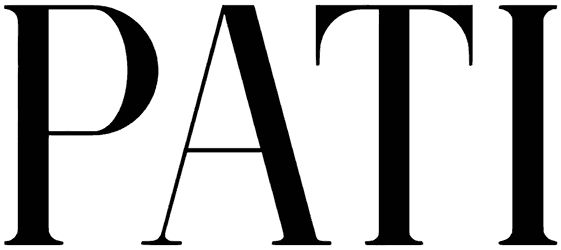
Pati Font
Pati exudes a timeless quality that is full of elegance and sophistication. This serif font has a classic design with a flourish at the end of each letter, which can bring a stylish look to your book cover, print text, a…
Pati exudes a timeless quality that is full of elegance and sophistication. This serif font has a classic design with a flourish at the end of each letter, which can bring a stylish look to your book cover, print text, and websites like a well-tailored suit.
By creating a delicate rhythm, Pati font can guide the reader’s eye along the text and make it easier to absorb without the need for small letters and numbers.